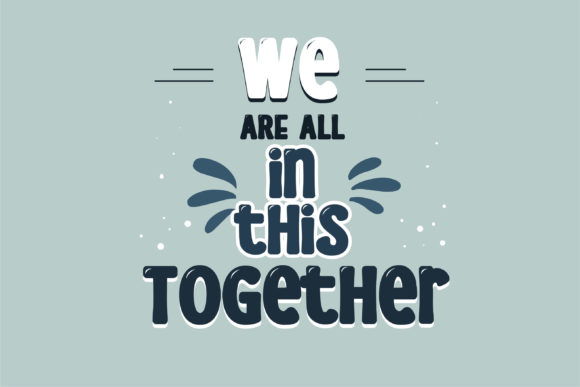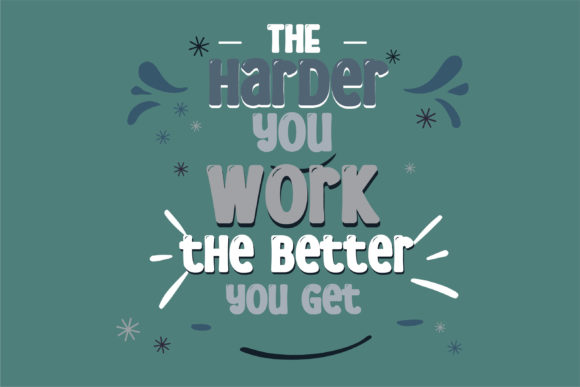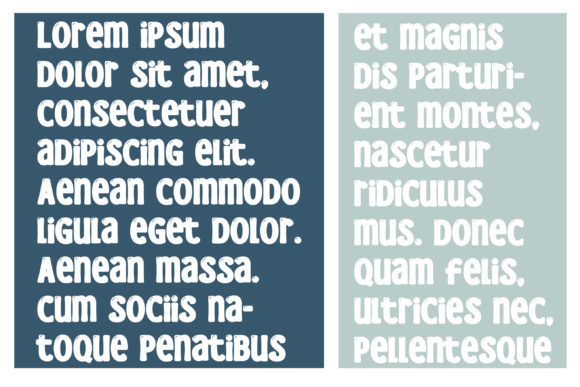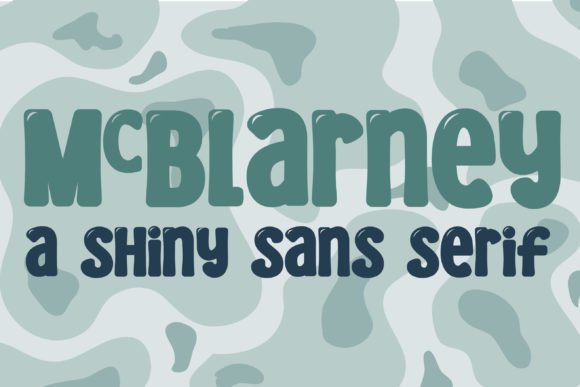
Introduction to McBlarney Font
McBlarney is a cool display font that has no descenders in the baseline.
It includes a shamrock-decorated version for your products that need a lucky vibe .